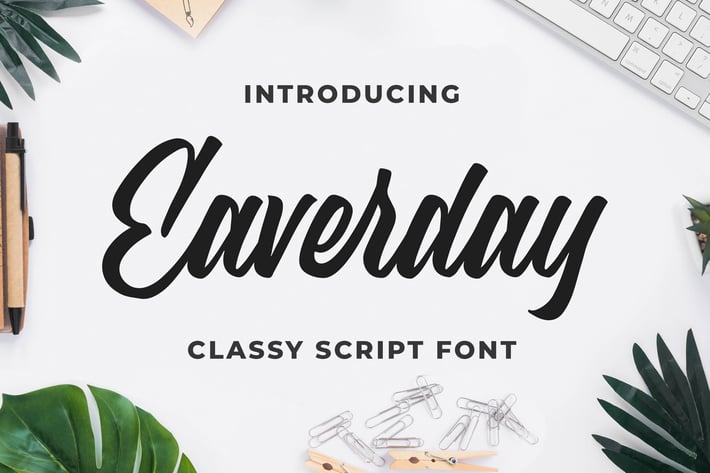
Eaverday - Classy Script Font
Introducing of our new product the name is Eaverday Classy Script Font. Eaverday inspired by script calligraphy this font is a fun theme very good for logotype, branding, apparel, clothing, poster and etc